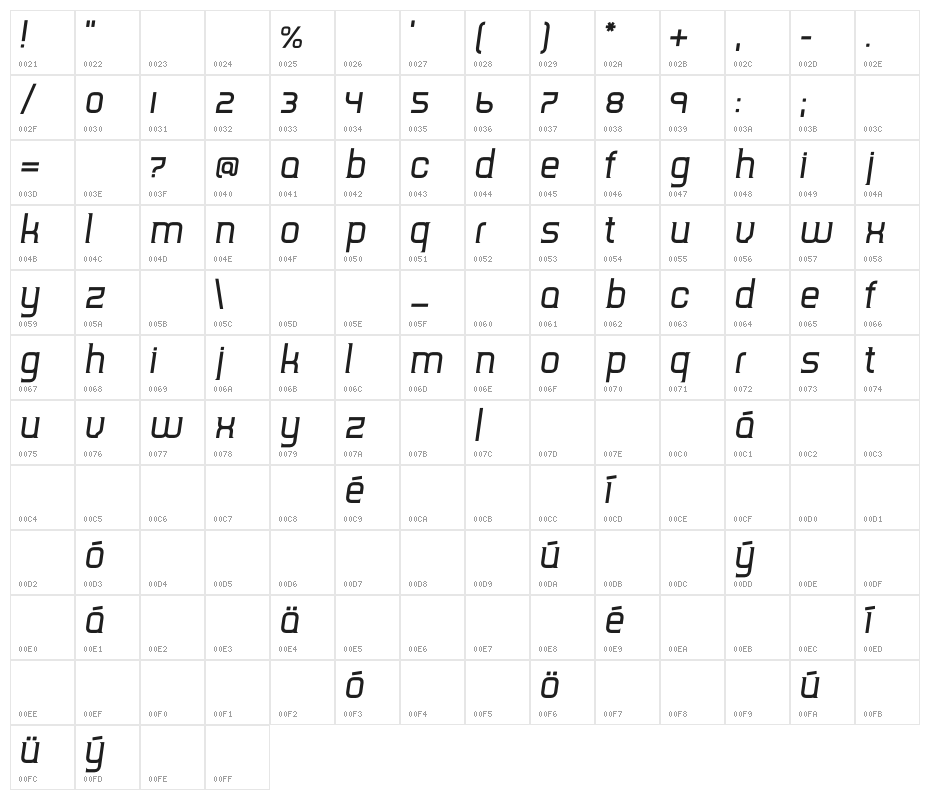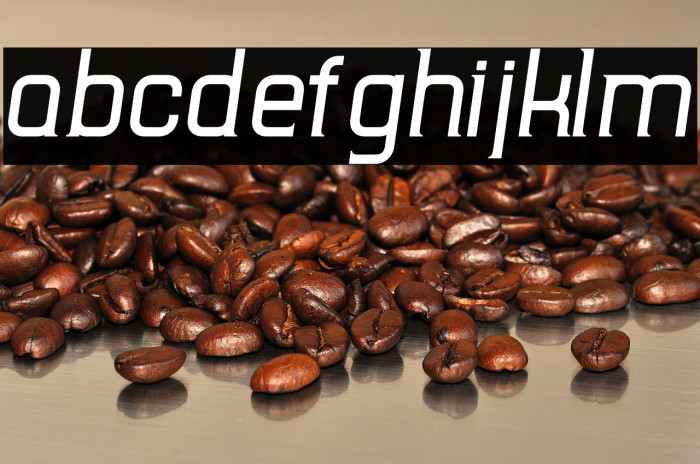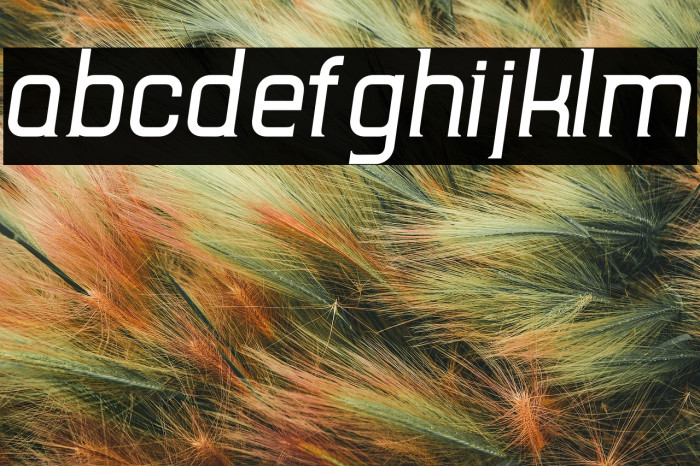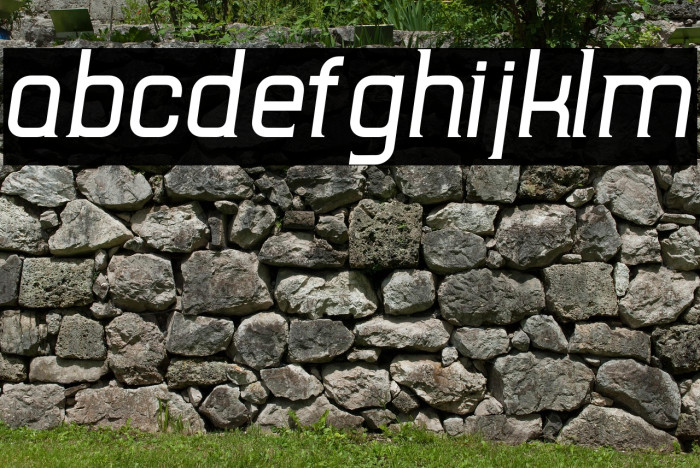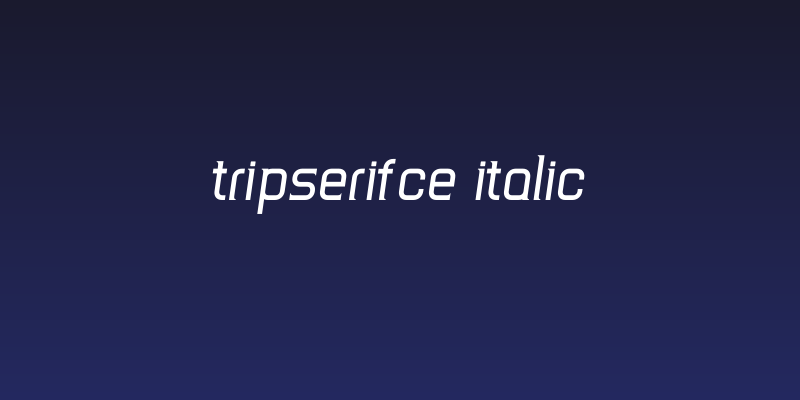
TripSerifCE Italic Font
TripSerifCE Italic Description
This font exhibits a sleek, modern design with a slight italic slant, giving it a dynamic and forward-moving appearance. The characters are well-defined with a consistent stroke width, contributing to its clean and professional look. The font maintains a balanced proportion between the height and width of the characters, ensuring readability while adding a touch of elegance. Its geometric shapes and smooth curves provide a contemporary feel, making it suitable for various digital and print applications. The numerals are distinct and clear, complementing the overall style of the font. Special characters are designed with the same attention to detail, ensuring they integrate seamlessly with the alphabetic characters.
| Proposed Projects | Ideal for branding, advertising, digital interfaces, and editorial design. |